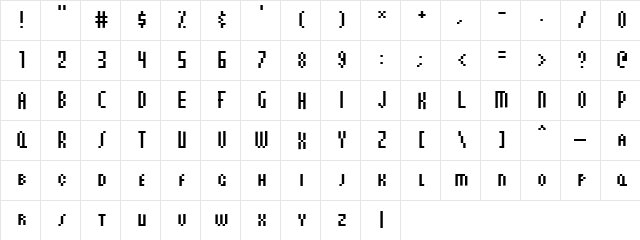
AuX DotBitC Cond SmallCaps Regular
Design Context for AuX DotBitC Cond SmallCaps Typeface
AuX DotBitC Cond SmallCaps celebrates the constraints of early digital type, turning pixel geometry into a distinctive and immediately recognisable style.
A natural choice for retro game titles, chiptune music branding, 8-bit UI, and digital nostalgia projects.
Pro Tip: Pair AuX DotBitC Cond SmallCaps with flat colour palettes and simple geometric UI elements to reinforce its digital aesthetic.